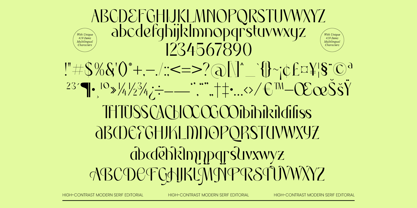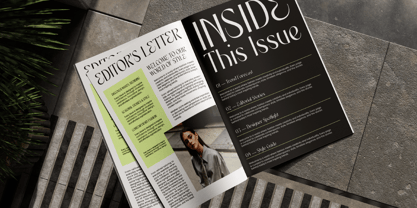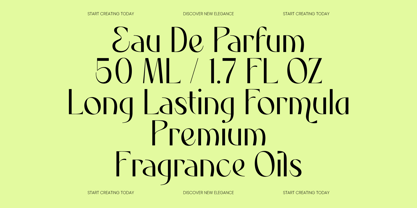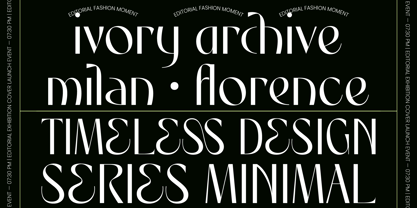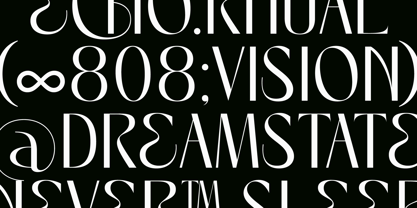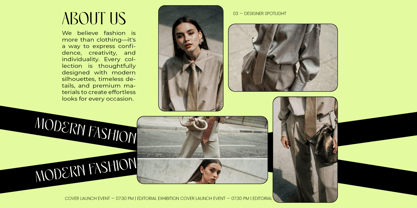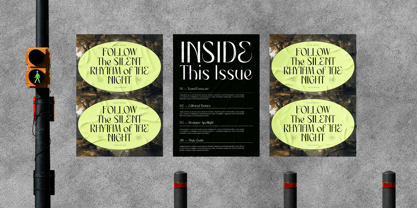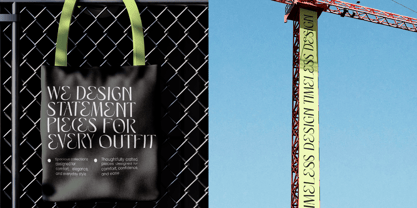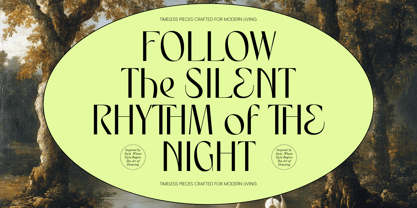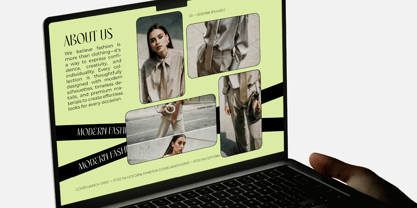
Rhythm The Night
The Rhythm The Night Font Family was designed by Heru Utama Putra and published by Timelesstype Studio. Rhythm The Night contains 2 styles and family package options.
Rhythm The Night - Modern Editorial Serif is a high-contrast serif that blends timeless elegance with contemporary flair. Its refined aesthetic and sharp letterforms create a striking visual impact, making it the definitive choice for designers who demand excellence in their typographic compositions.
Expand your creative horizons with a tool built for the modern, interconnected world. With its extensive multilingual support, Rhythm The Night - Modern Editorial Serif adapts seamlessly across global markets, making it incredibly versatile for international projects. This global adaptability ensures that your brand message remains consistent and impactful, regardless of the linguistic landscape or target audience.